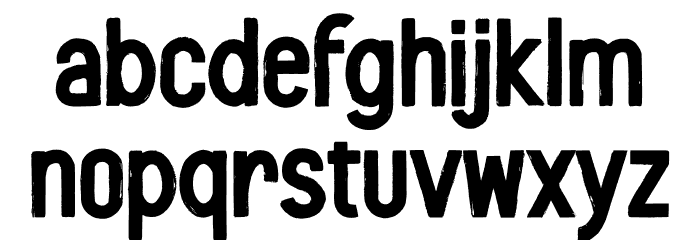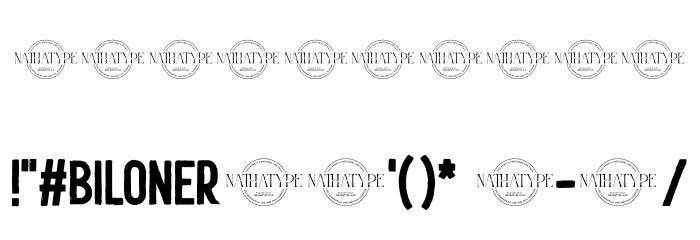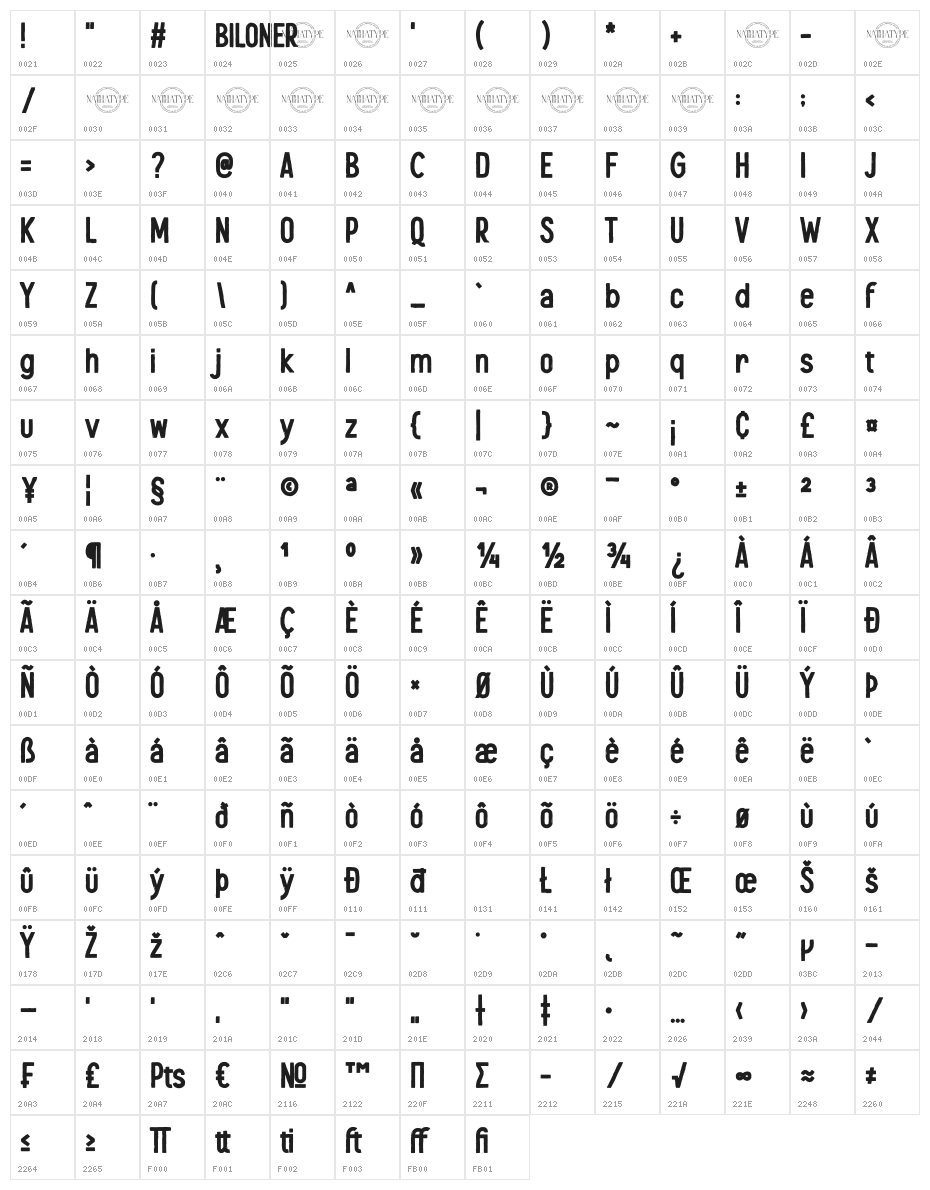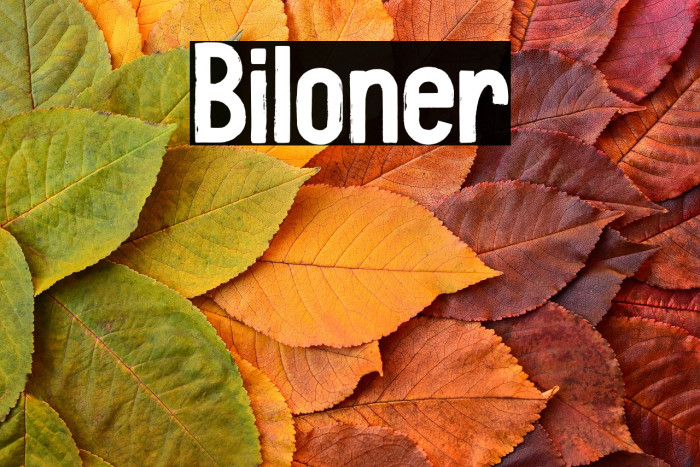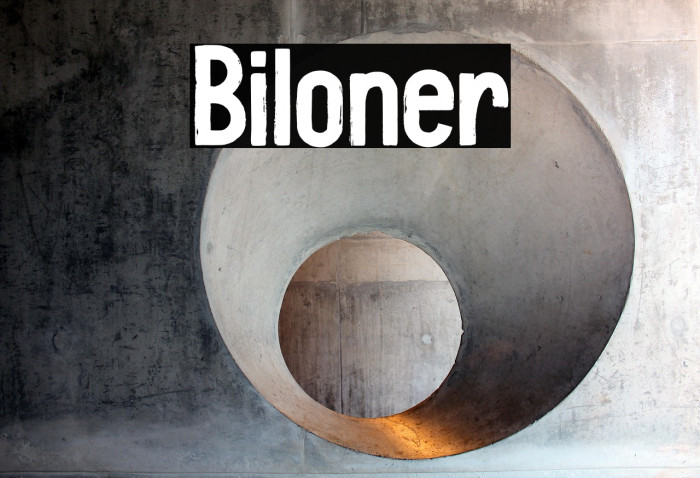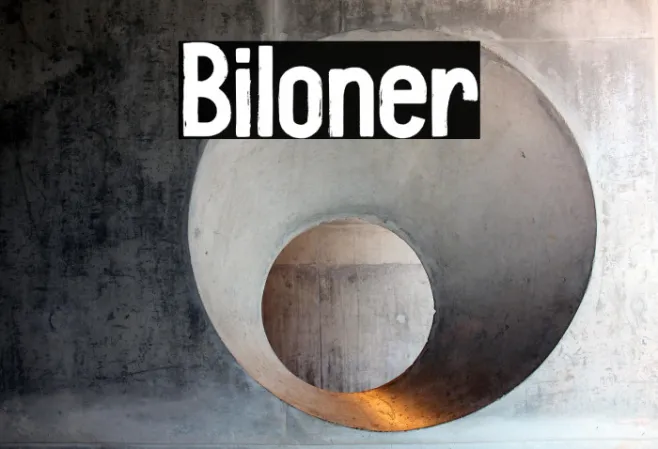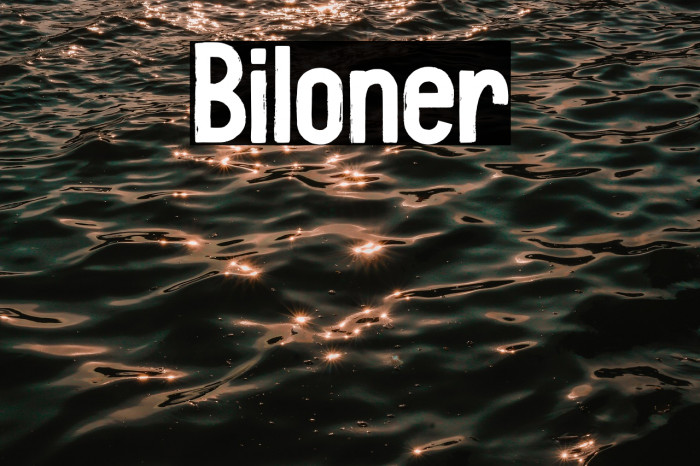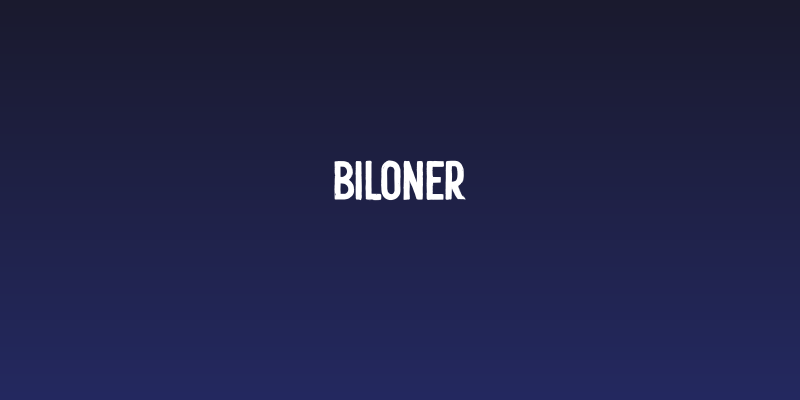
Biloner Font
This font exhibits a bold and rugged style with a hand-drawn appearance, characterized by its thick strokes and slightly uneven edges, giving it a raw and organic feel. The uppercase letters are prominent and impactful, while the lowercase letters maintain a consistent style that complements the overall design. The numerals and special characters follow the same aesthetic, ensuring a cohesive look across all glyphs. This font's unique texture and bold presence make it stand out, ideal for projects that require a strong visual impact.
A bold, hand-drawn font with rugged, organic strokes.
- Proposed Projects: Ideal for posters, branding, packaging, and any design needing a bold, handcrafted look.